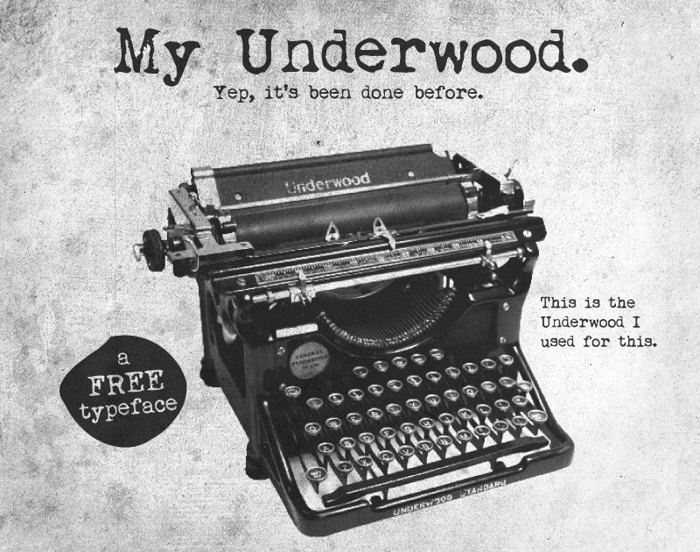
My Underwood Font
A typeface of my vintage Underwood portable typewriter. Only contains characters that exist on the real typewriter. Oh, and it needed to be cleaned BAD.
Is it possible to add an exclamation mark (!) to the font? On these old typewriters, to create an exclamation mark you had to type (') then backspace to type the (.). This is not possible to do on a computer.
So what if it's been done before? If it ain't broke, don't fix it! This is perfect. Easy to read, and it conveys the message without being ostentatious. Thank you for posting.